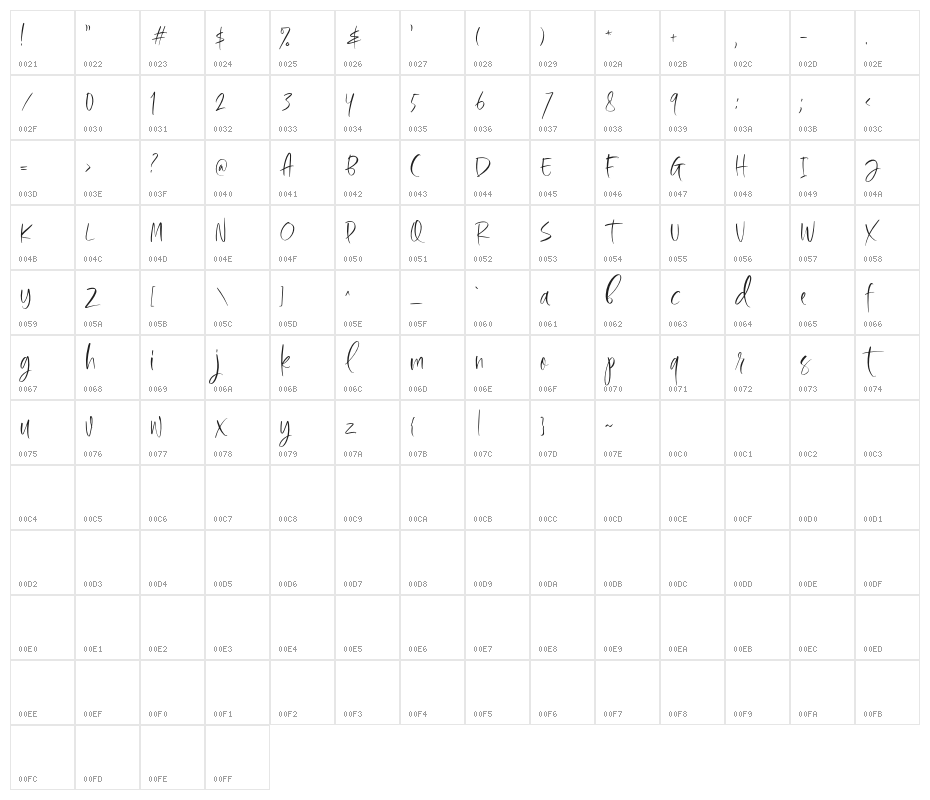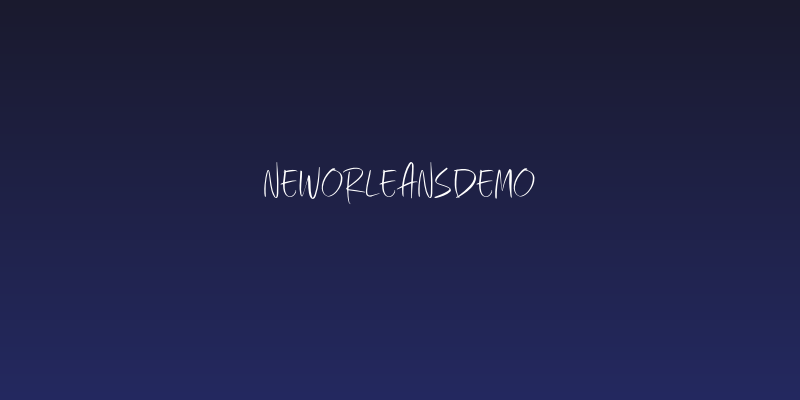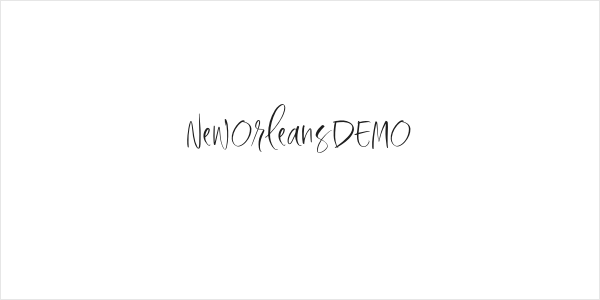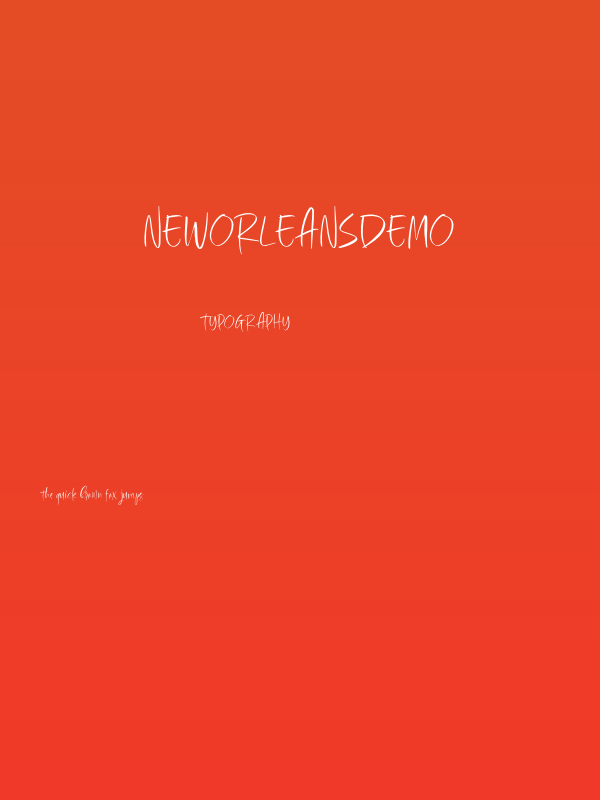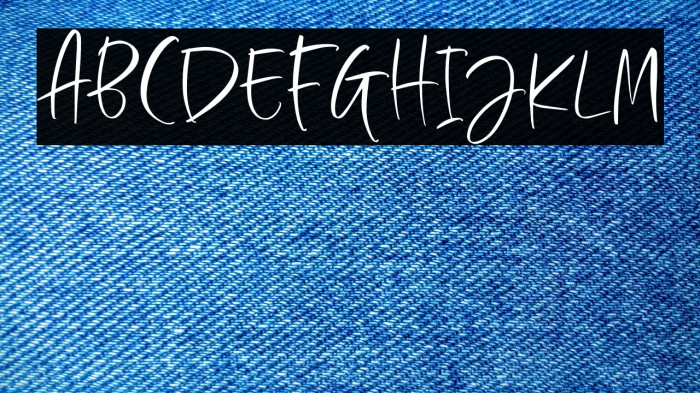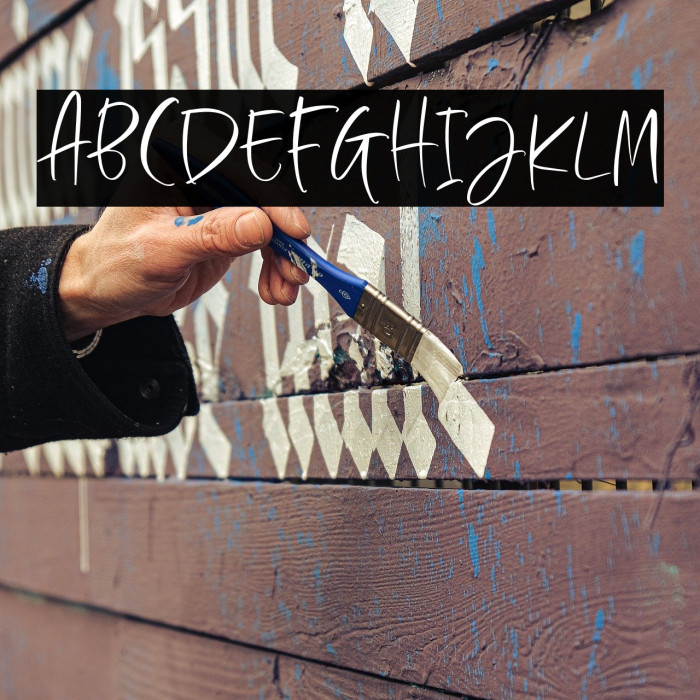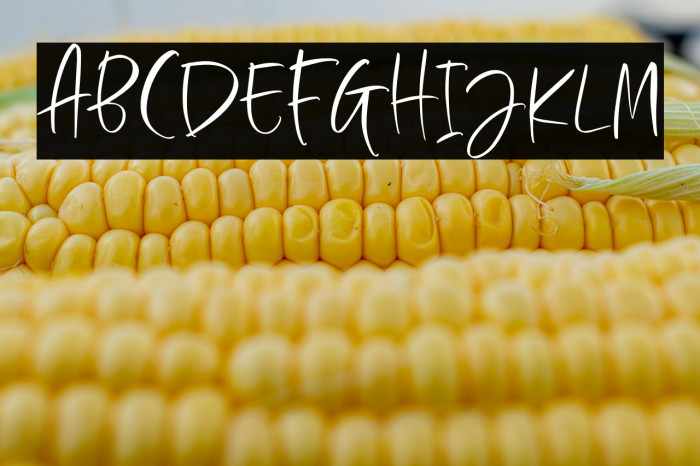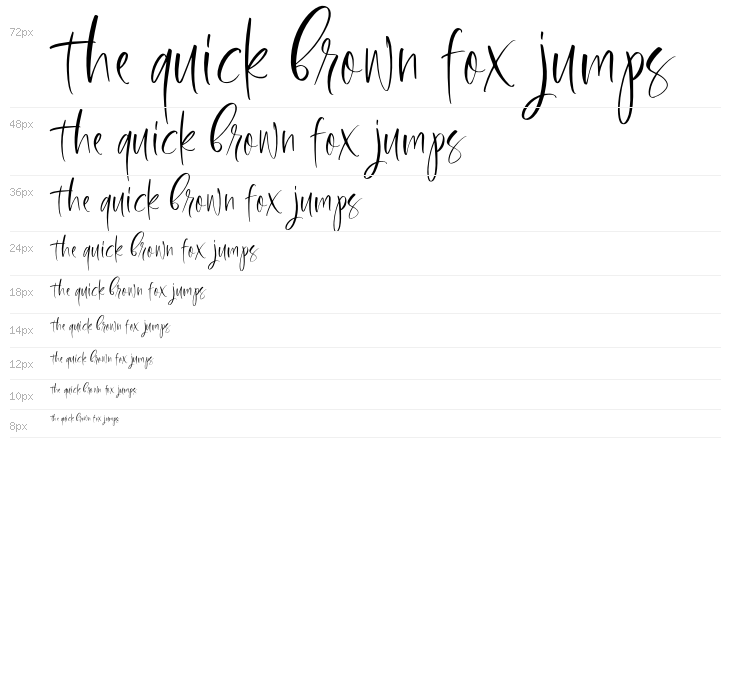
NewOrleansDEMO Font
NewOrleansDEMO Description
This font exhibits a lively and dynamic handwritten style, characterized by its fluid and slightly irregular strokes. The uppercase letters are tall and slender, with a playful yet elegant flair, while the lowercase letters maintain a consistent flow, enhancing the handwritten aesthetic. The numerals and special characters are crafted with the same attention to detail, ensuring a cohesive look across all glyphs. This font's unique charm lies in its ability to convey a sense of personal touch and creativity, making it ideal for projects that require a humanistic and approachable feel.
| Proposed Projects | Ideal for wedding invitations, greeting cards, personal branding, and creative projects that require a handwritten touch. |